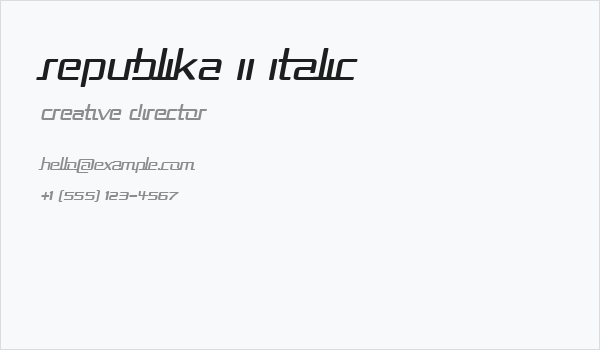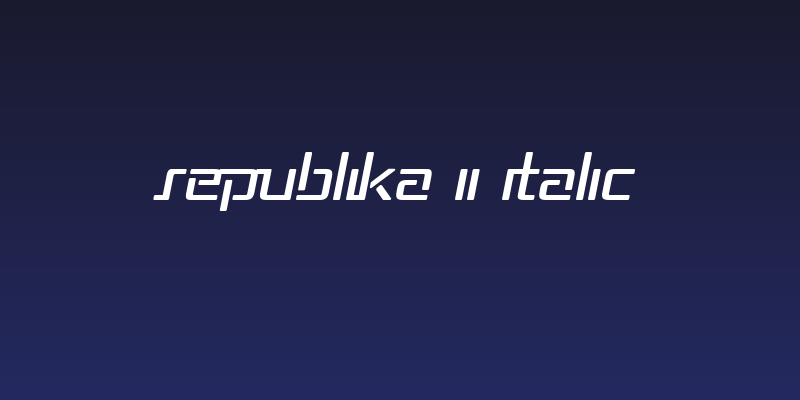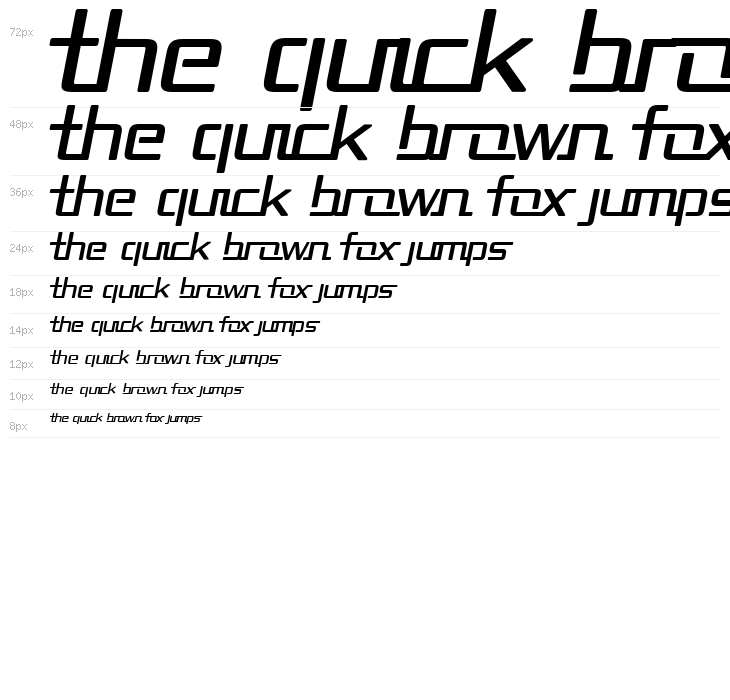
Republika II Italic Font
Republika II Italic Description
This font features a modern, geometric design with a distinct italic slant, giving it a dynamic and forward-moving appearance. The characters are constructed with clean, straight lines and sharp angles, creating a futuristic and technical aesthetic. The uppercase and lowercase letters maintain a consistent style, with uniform stroke widths that provide a balanced and cohesive look. The numerals and special characters are designed to complement the alphabet, maintaining the same angular and sleek characteristics. This font is well-suited for projects that require a contemporary and innovative feel.
Use CaseLogos, Headlines, Digital interfaces
Proposed ProjectsIdeal for technology branding, modern advertising, digital interfaces, and innovative product packaging.
AuthorFonts by Apostrophic Lab